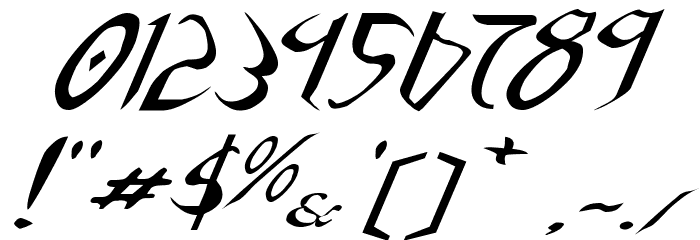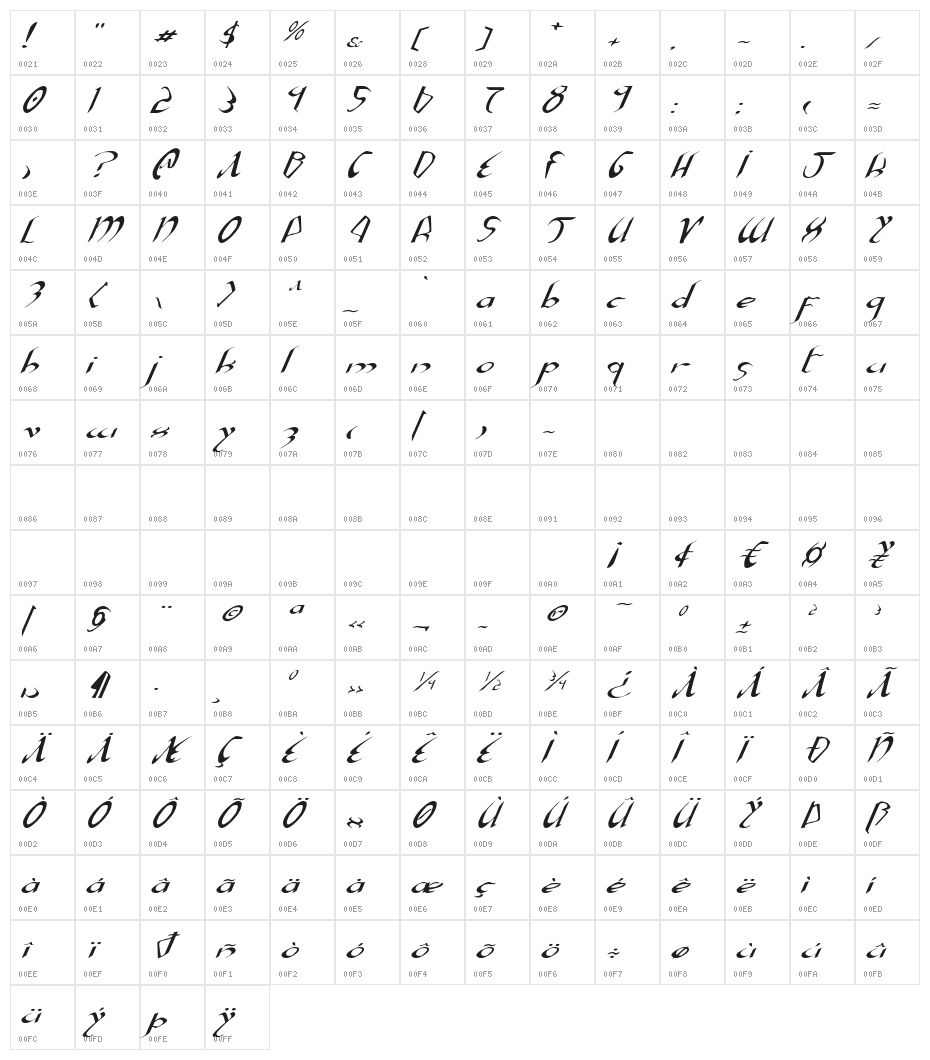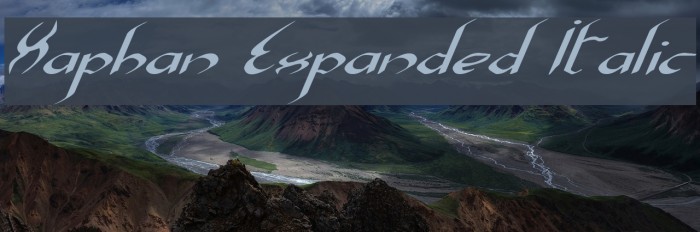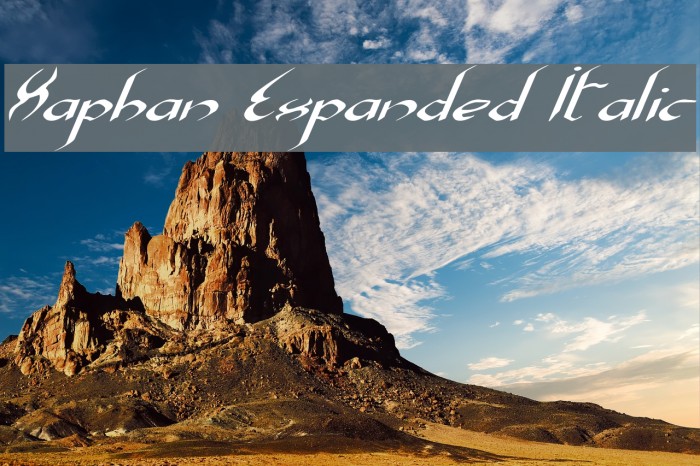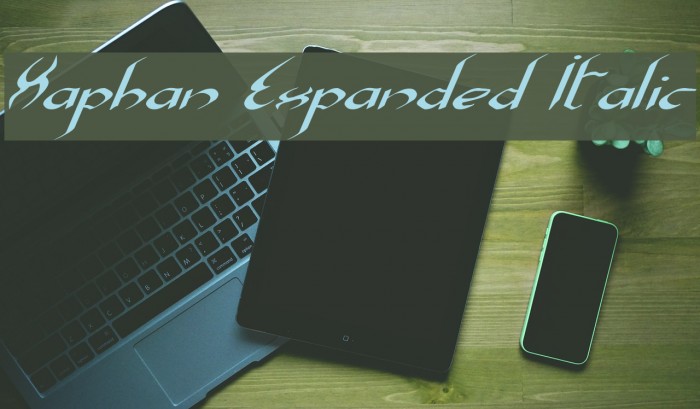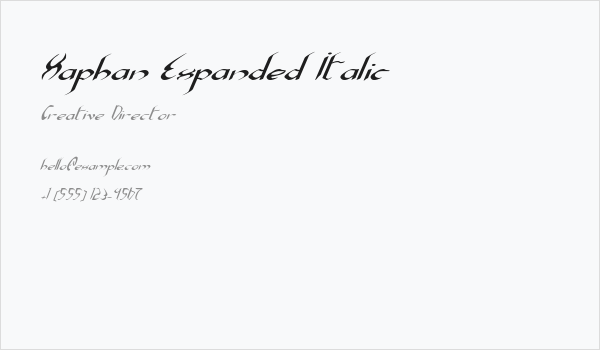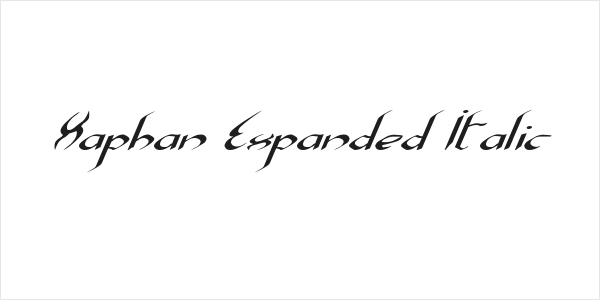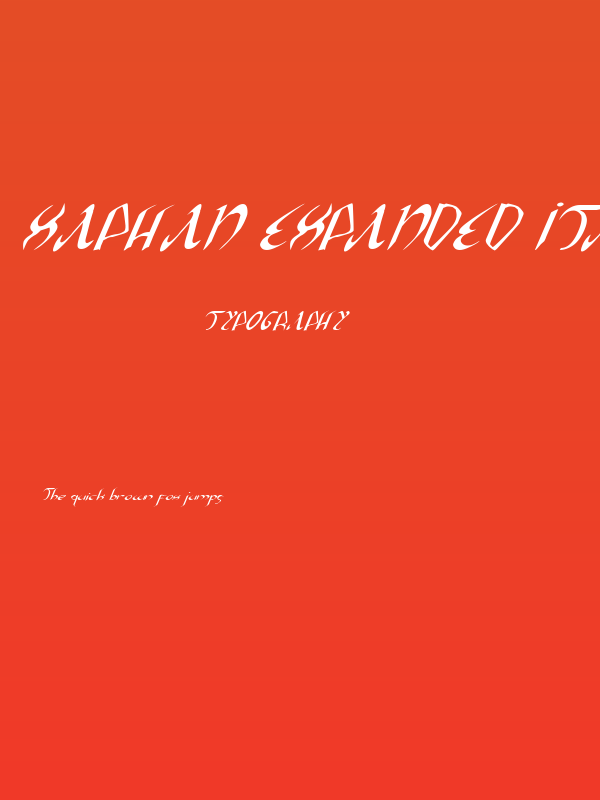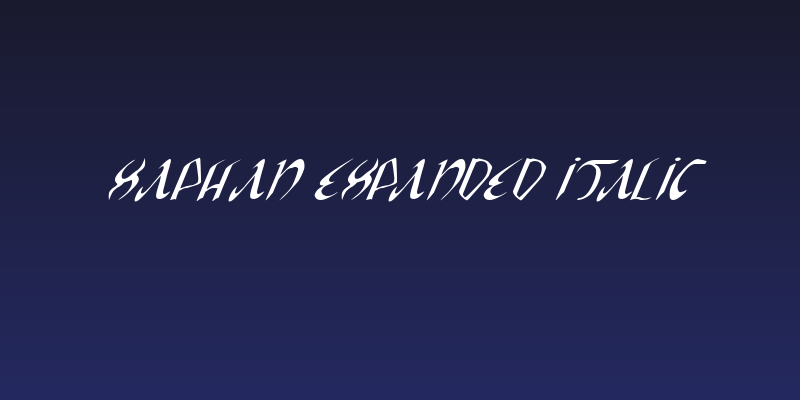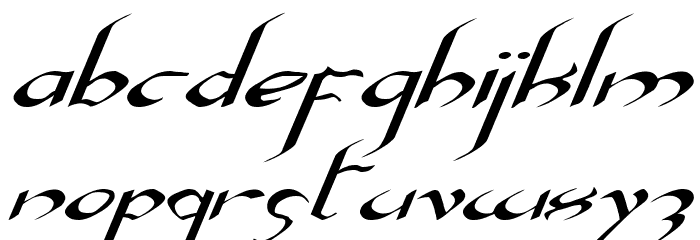
Xaphan Expanded Italic Font
Xaphan Expanded Italic Description
This font features a dynamic and expressive style with a strong italic slant, giving it a sense of motion and energy. The characters are elongated and slightly condensed, with sharp, angular strokes that create a dramatic and bold appearance. The uppercase letters are particularly striking, with exaggerated serifs and sweeping curves that enhance the font's decorative nature. The lowercase letters maintain a consistent flow, complementing the uppercase with their own unique flair. Numbers and special characters are designed to match the overall aesthetic, ensuring a cohesive look. This font is ideal for projects that require a bold and artistic touch, making it suitable for headlines, posters, and creative designs.
| Use Case | Headlines, Posters, Creative Designs |
| Proposed Projects | Ideal for artistic projects, headlines, posters, and creative design work. |